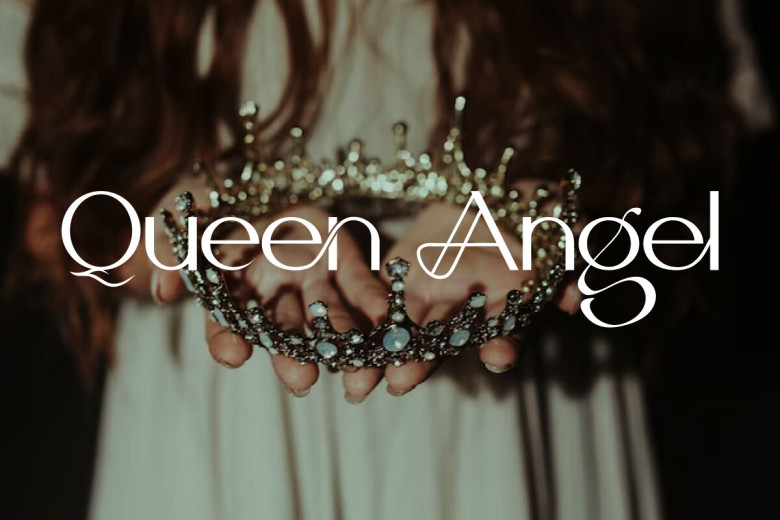
Queen Angel Font
Queen Angel Font is an artistic sans serif display font with an impressive touch of elegance. It will be perfect for your many creative projects, such as billboards, brand logos, brochure, covers, header, invitations, label, magazine catalogs, mockup designs, posters, product packaging, screen prints, signage, stationery, stickers, titles, website, etc
Queen Angel Sans Serif Font